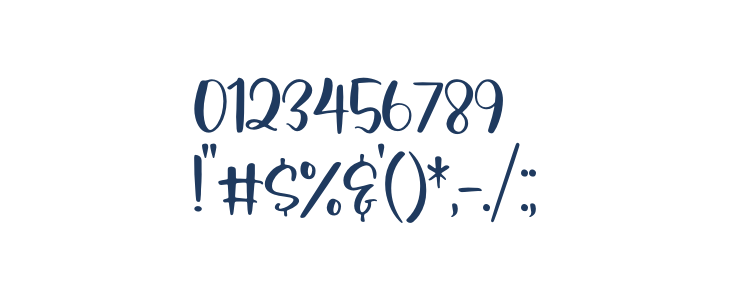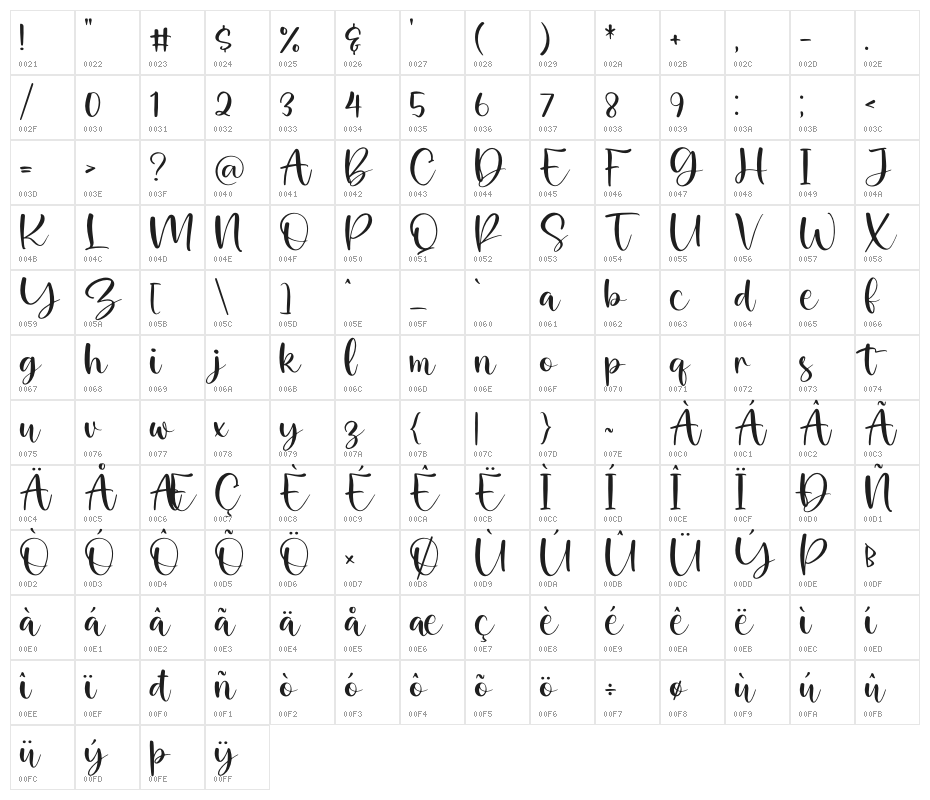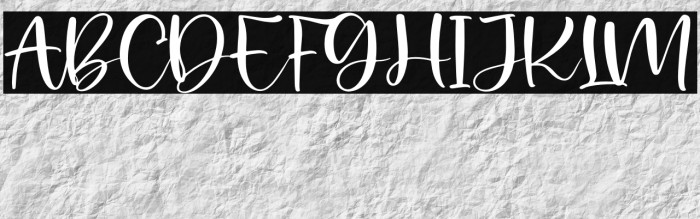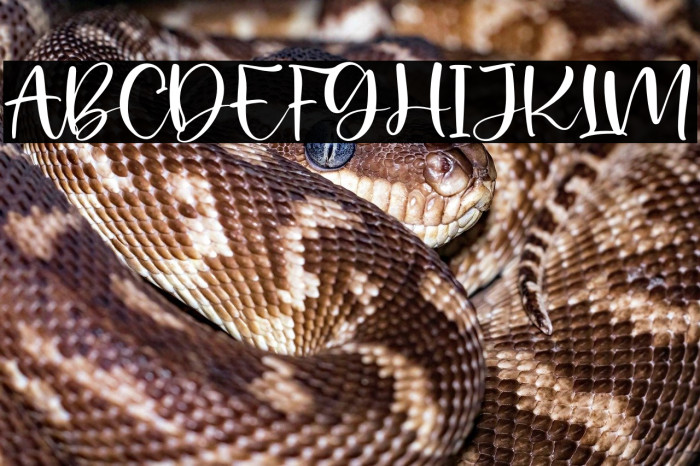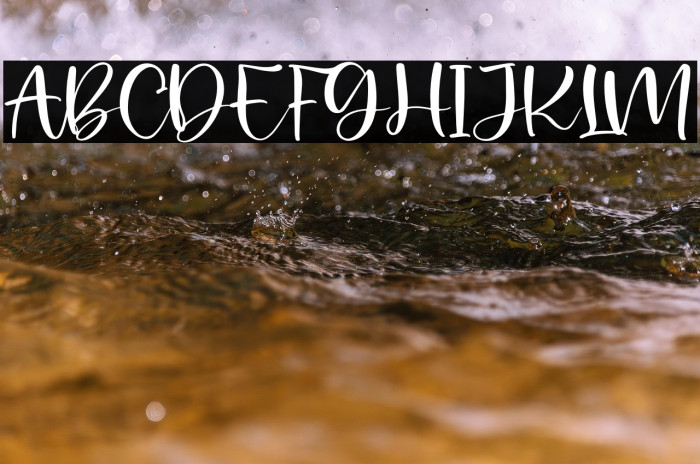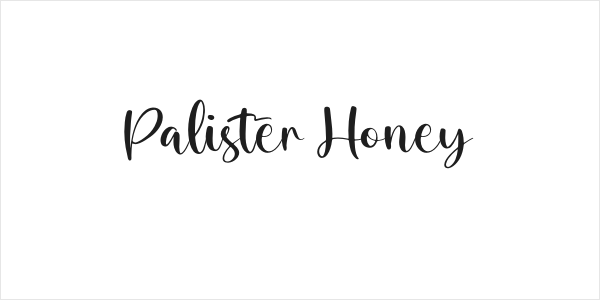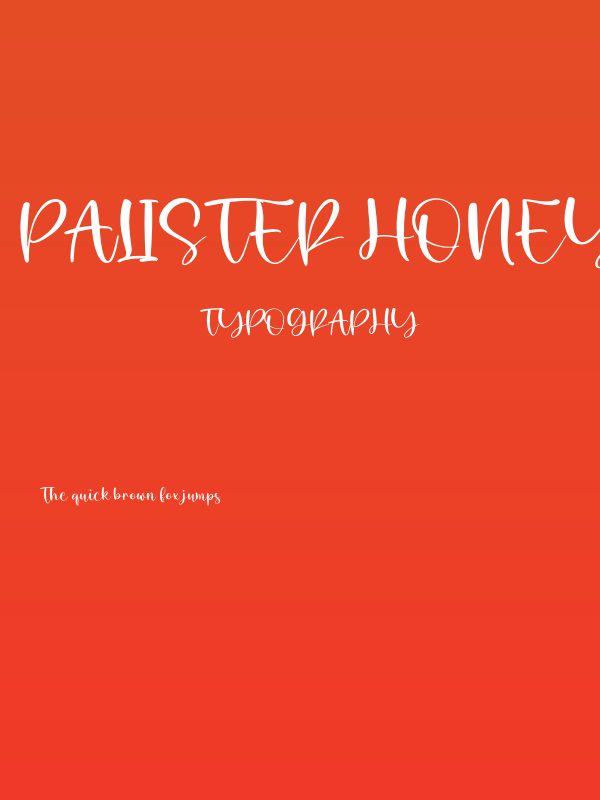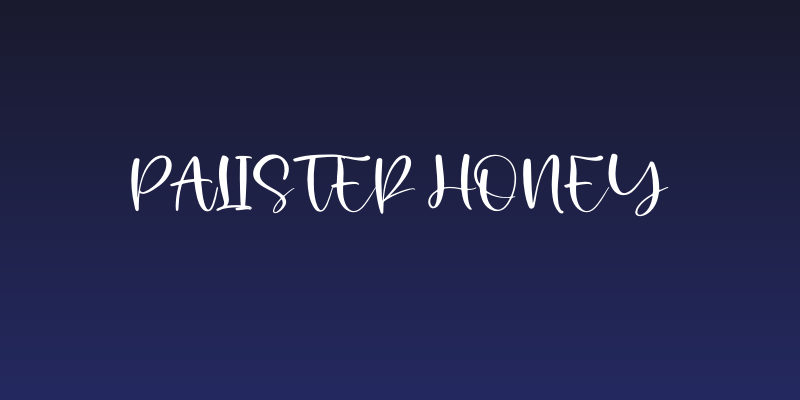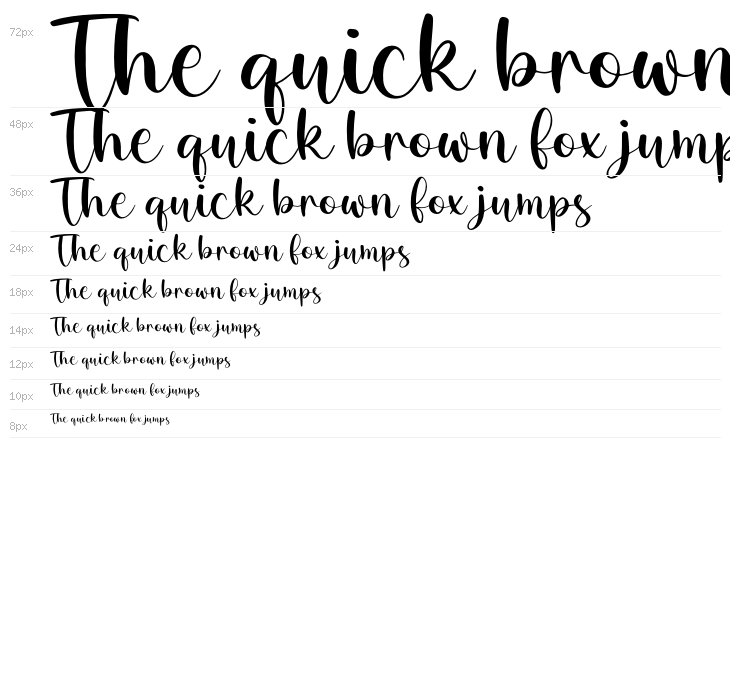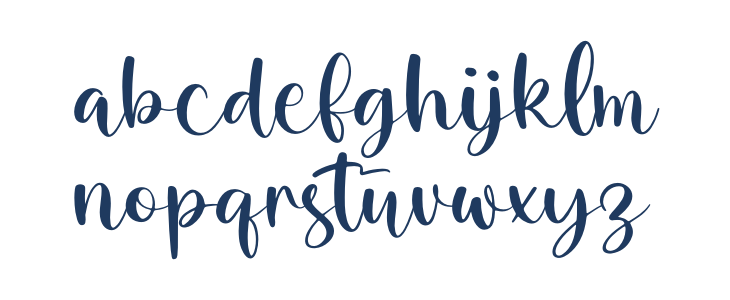
Palister Honey Font
Palister Honey Description
This font features a lively and flowing script style, characterized by its smooth, cursive strokes and elegant loops. The uppercase letters exhibit a playful yet sophisticated flair, with varying stroke widths that add a dynamic quality to the text. The lowercase letters maintain a consistent rhythm, enhancing readability while retaining the font's artistic charm. Numbers and special characters are crafted with the same attention to detail, ensuring a cohesive look across all text elements. The overall design is both modern and timeless, making it versatile for various creative applications.
Use CaseLogos, Headlines, Decorative text
Proposed ProjectsIdeal for wedding invitations, branding, greeting cards, and social media graphics.